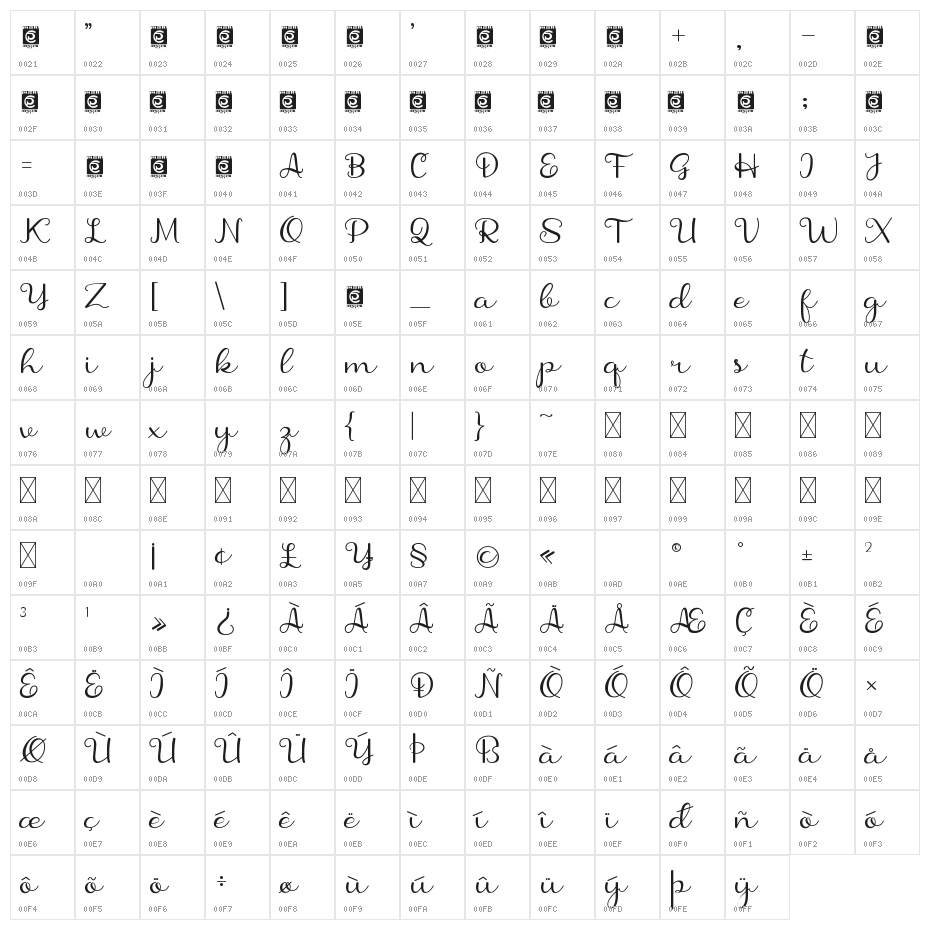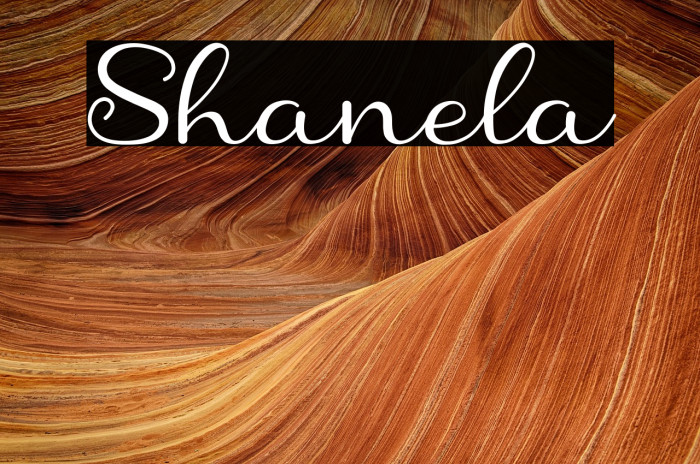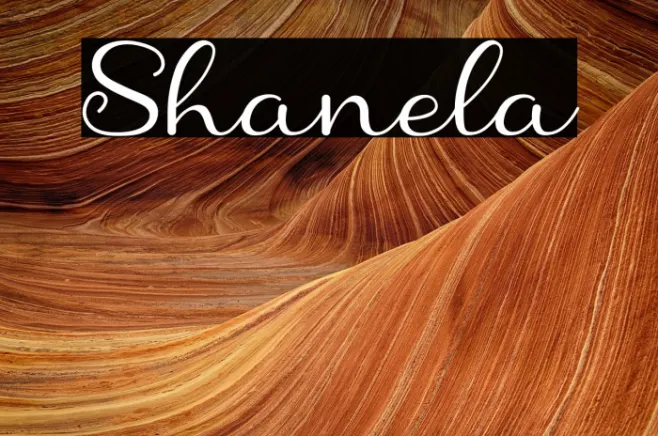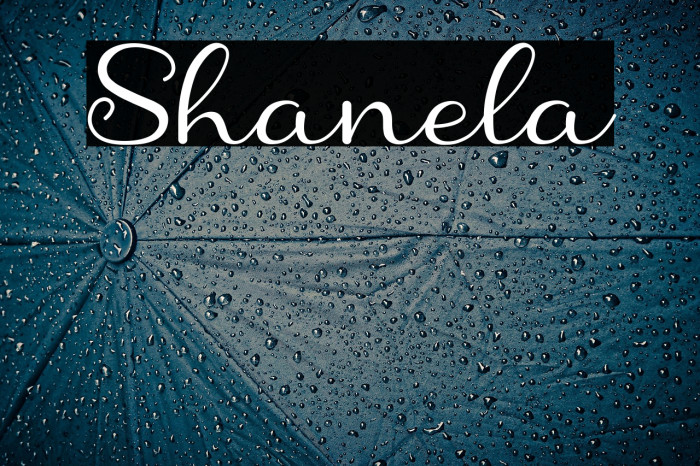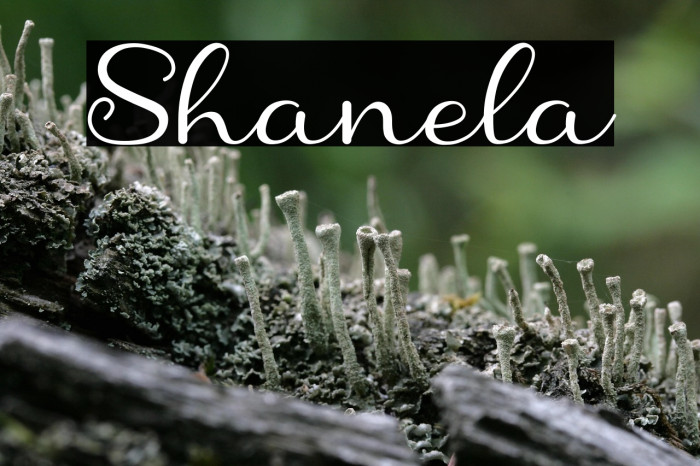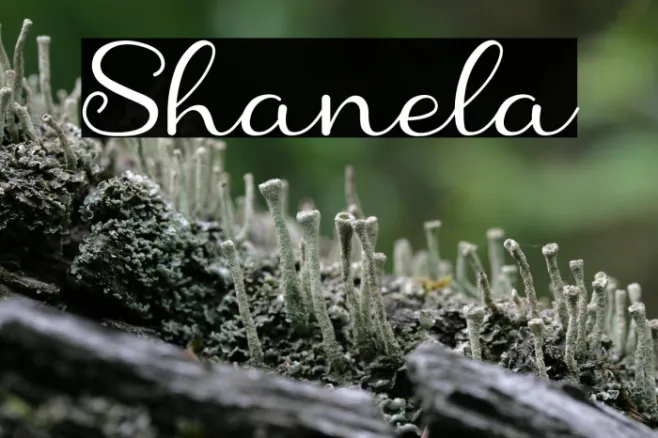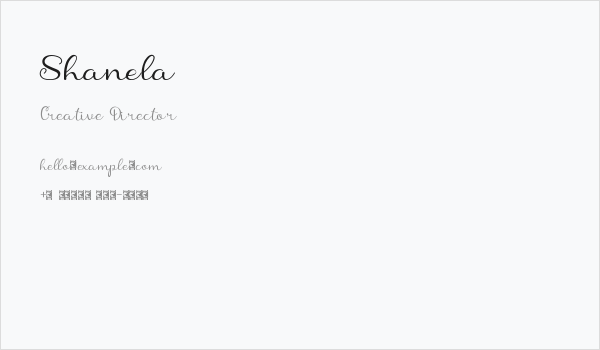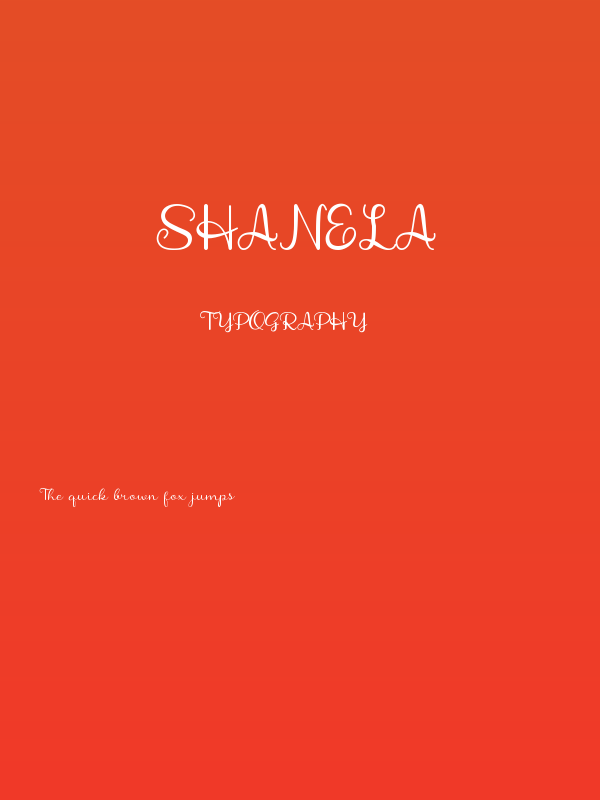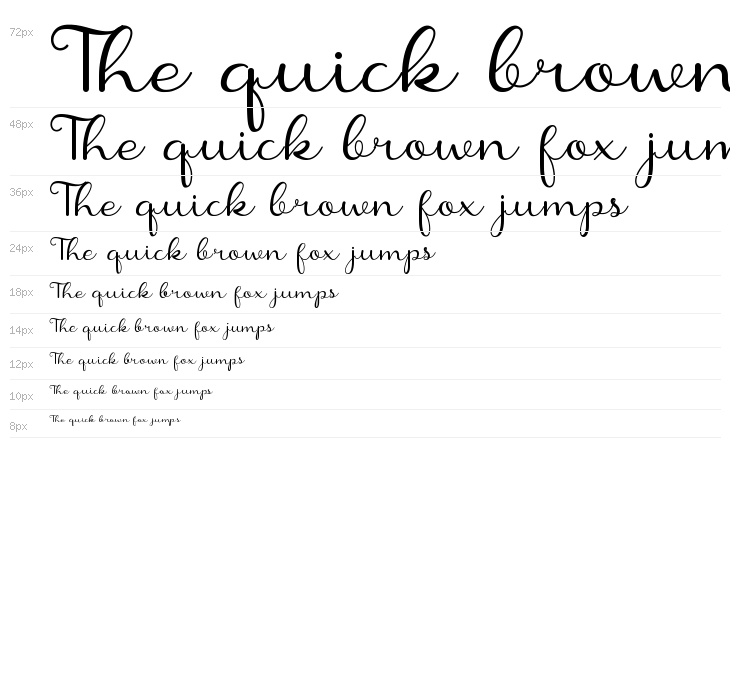
Shanela Font
Shanela Description
This elegant script font features a flowing, cursive style with smooth, rounded edges and a consistent stroke width. The uppercase letters are slightly more ornate, with subtle flourishes that add a touch of sophistication. The lowercase letters maintain a harmonious balance, creating a seamless and fluid appearance. The font's design is both graceful and legible, making it suitable for a variety of uses. Its delicate curves and loops give it a romantic and artistic feel, perfect for projects that require a personal or creative touch.